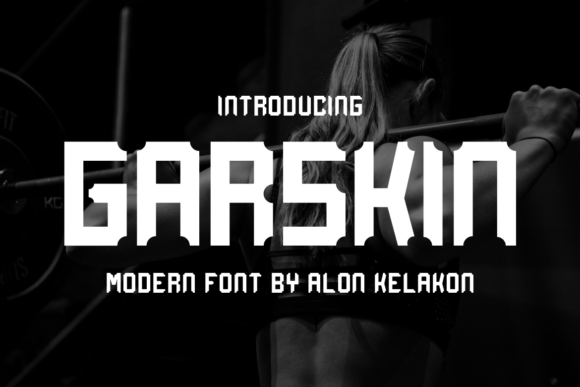
**Introducing Garskin Font: The Ultimate Display Font for Memes and Modern Designs**
In a world saturated with ordinary fonts, Garskin Font emerges as a breath of fresh air, a font that captivates and compels with its bold, all-caps display. Its strokes, pregnant with personality, exude a confidence that commands attention, making it the perfect choice for those seeking to make a statement.
**A Font that Resonates with Memes and Modernity**
Garskin Font is not just a font; it's a cultural phenomenon, a font that has become synonymous with memes and modern designs. Its inherent playfulness and wit make it a natural fit for memes, while its clean lines and contemporary aesthetic seamlessly integrate into modern designs.
**A Font with Unparalleled Versatility**
Whether you're a seasoned graphic designer or a novice crafter, Garskin Font has something for everyone. Its versatility knows no bounds, shining in a myriad of applications, from digital designs and presentations to greeting cards and crafting projects. Unleash your creativity and let Garskin Font transform your designs into masterpieces.
**The Perfect Font for Crafting**
For those who find solace in the art of crafting, Garskin Font is the perfect companion. Its bold strokes add a touch of whimsy and character to handmade cards, scrapbooks, and other paper crafts. Let your imagination run wild as you create unique and personalized keepsakes.
**Digital Designs that Captivate**
In the realm of digital design, Garskin Font reigns supreme. Its crisp lines and modern aesthetic make it ideal for creating captivating logos, eye-catching social media graphics, and engaging website designs. Elevate your digital presence and leave a lasting impression on your audience.
**Presentations that Inspire**
Transform your presentations from mundane to magnificent with a touch of Garskin Font. Its bold presence commands attention and ensures your message is delivered with impact. Engage your audience, keep them captivated, and leave them with a lasting memory of your presentation.
**Greeting Cards that Warm Hearts**
Convey your heartfelt sentiments with Garskin Font, the perfect choice for crafting greeting cards that touch the soul. Its playful charm adds a personal touch, making your cards truly unique and memorable. Spread joy, love, and laughter with Garskin Font.
**Garskin Font: A Masterpiece Awaiting Your Creative Touch**
Garskin Font is more than just a font; it's an invitation to unleash your creativity and make a statement. Its endless possibilities and captivating presence await your exploration. Embrace Garskin Font and embark on a creative journey that will leave you breathless.